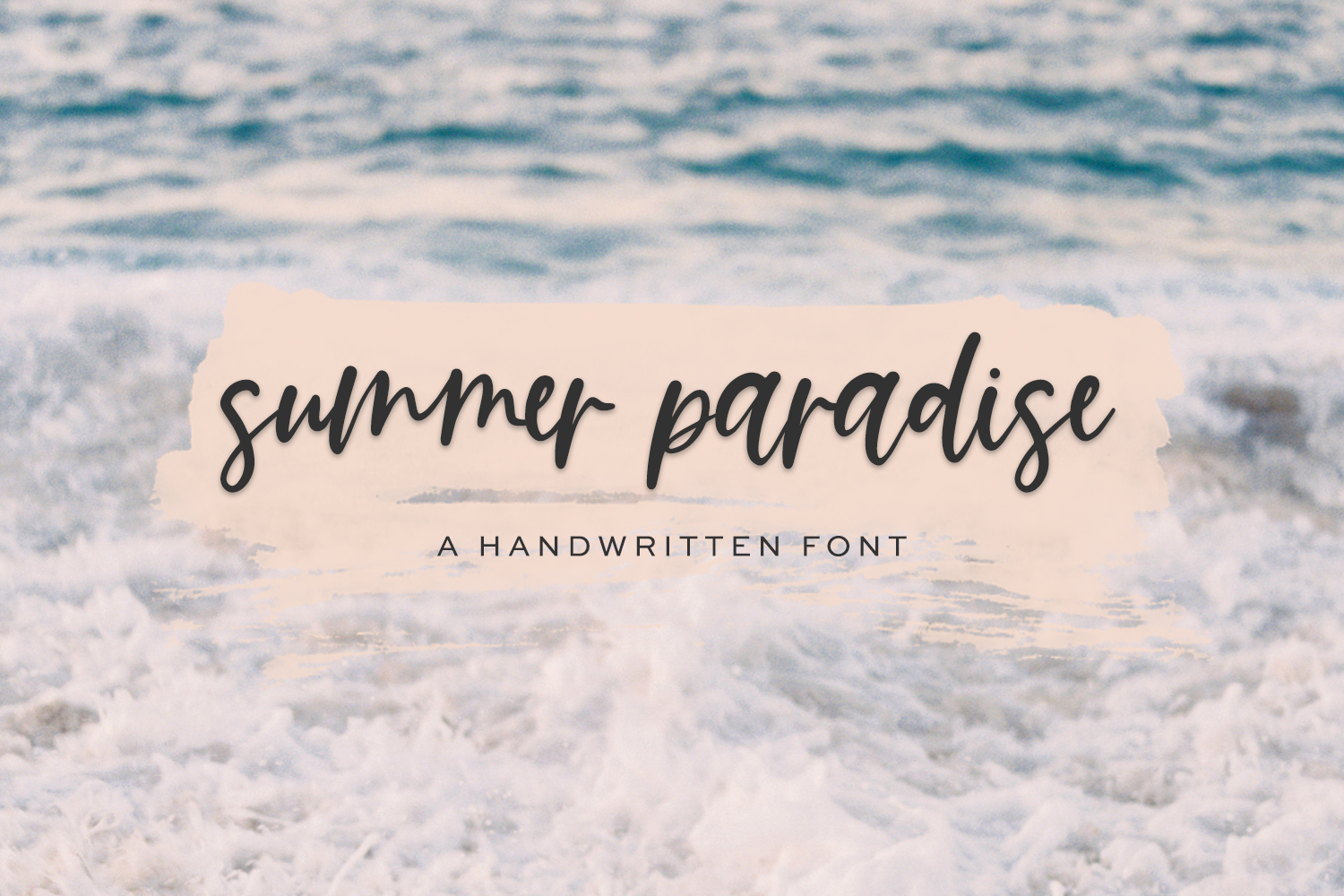
Introducing Summer Paradise Script, a handwritten signature style font. This stylish font features a messy, casual look and ligatures to enhance the flow of the handwriting look & feel of your project!
Summer Paradise includes:
- 10 ligatures - bb, dd, gg, mm, nn, oo, pp, rr, ss, tt